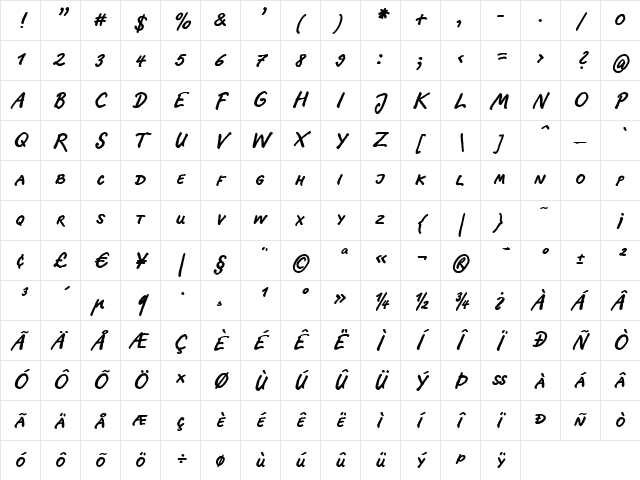
RopsenScript-BoldSC Regular
Design Context for RopsenScript-BoldSC
RopsenScript-BoldSC flows with the natural rhythm of handwritten lettering, making it ideal for designs that call for warmth and personal expression. Its bold stroke weight gives it real presence on the page.
Font Pairing: Combine RopsenScript-BoldSC with a simple geometric sans for maximum contrast - the tension between flowing curves and clean structure is a classic typographic pairing.
Pro Tip: Use RopsenScript-BoldSC for short runs of text - names, titles, or taglines. Extended body copy in script faces tires the eye quickly.